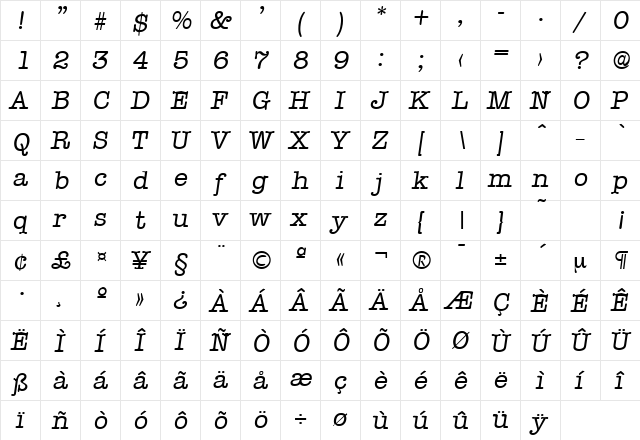
Typewriter-Serial DB RegularItalic
Design Context for Typewriter-Serial DB Typeface
Typewriter-Serial DB brings the precise, column-aligned rhythm of monospaced typography to designs that value technical clarity and systematic order. The dynamic lean of this cut emphasises speed and emphasis in any layout.
Pro Tip: Pair Typewriter-Serial DB with a proportional sans for UI contexts where code-style labels and regular body copy need to coexist.